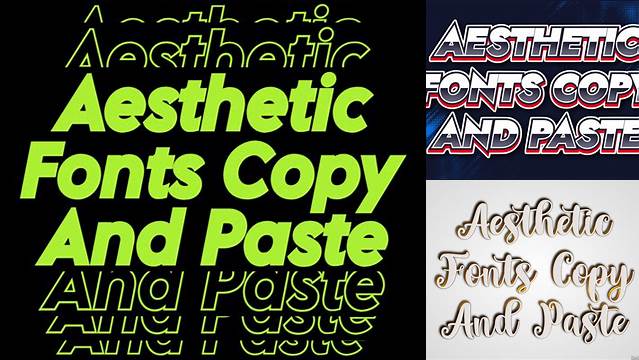
Aesthetic Fonts For IPhone: Copy & Paste Guide
Hey guys! Ever wanted to spice up your iPhone texts and social media posts with some super cool aesthetic fonts? You're in the right place! This guide will walk you through everything you need to know about getting those trendy fonts on your iPhone, all with the magic of copy and paste. Let's dive in and make your messages stand out!
1. What are Aesthetic Fonts?
So, what exactly are aesthetic fonts? Well, think of them as stylish and unique typefaces that go beyond the regular, built-in fonts on your iPhone. We're talking about fonts that can add a touch of personality, creativity, and visual flair to your messages, bios, captions, and more. These fonts often include things like cursive styles, bubble letters, gothic fonts, and other decorative elements. Aesthetic fonts aren't just about looking pretty; they're about expressing yourself and making your content stand out in a sea of plain text. They allow you to create a specific mood or style, whether you're going for playful, elegant, edgy, or something else entirely. Using aesthetic fonts is a great way to give your digital presence a unique touch and grab the attention of your audience. Imagine your Instagram bio with a cool cursive font or your text messages with a fun, bubbly typeface. It’s all about adding that extra layer of visual appeal and making your content more memorable. The best part? You don't need any fancy software or design skills to use them. With the copy and paste method, it's super easy to incorporate these fonts into your daily digital communication. So, go ahead and explore the world of aesthetic fonts and let your creativity shine!
2. Why Use Aesthetic Fonts on Your iPhone?
Why should you even bother with aesthetic fonts on your iPhone? The answer is simple: to make your content pop! In a world saturated with digital information, standing out is more important than ever. Using unique fonts can instantly grab attention and make your messages more memorable. Think about it – a beautifully crafted Instagram caption or a creatively designed bio can leave a lasting impression. Aesthetic fonts allow you to express your personality and style in a way that regular fonts just can't. They add a touch of individuality to your messages, making them more engaging and visually appealing. Whether you're aiming for a playful, elegant, or edgy vibe, there's an aesthetic font out there to match your vision. Moreover, using aesthetic fonts can enhance your overall online presence. They can make your social media profiles look more professional and polished, which is especially important if you're a content creator or business owner. A consistent use of aesthetic fonts can help you establish a unique brand identity and make your content instantly recognizable. Plus, let's be honest, they're just plain fun to use! Experimenting with different fonts can spark your creativity and add a fresh perspective to your digital communication. So, if you're looking to elevate your iPhone game and make a statement, aesthetic fonts are the way to go!
3. Finding the Best Aesthetic Font Apps
Alright, so you're sold on using aesthetic fonts, but where do you find them? The good news is that there are tons of fantastic apps available for your iPhone that offer a wide variety of stylish typefaces. Finding the best one really depends on your personal preferences and what you're looking to achieve. Some apps focus on providing a vast library of fonts, while others specialize in specific styles, like cursive or gothic. A great place to start is by exploring the App Store and searching for terms like "aesthetic fonts," "cool fonts," or "font keyboard." You'll find a plethora of options, each with its own unique features and offerings. When browsing through these apps, pay attention to user reviews and ratings. This can give you a good sense of the app's reliability and overall quality. Also, check out the app's screenshots and descriptions to get a better understanding of the font styles it offers. Look for apps that provide a good balance of variety, ease of use, and compatibility with different platforms. Some popular apps include Fontsy, Fonts for Instagram, and FancyKey Keyboard. These apps typically offer a free version with a limited selection of fonts, as well as a premium version with access to a wider range of options. Don't be afraid to try out a few different apps to see which one best suits your needs. Remember, the goal is to find an app that makes it easy and fun to incorporate aesthetic fonts into your iPhone communications!
4. Top Font Styles for iPhone Aesthetics
Now, let's talk about some of the top font styles that can seriously elevate your iPhone aesthetic. The world of aesthetic fonts is vast and varied, offering something for every taste and style. Whether you're into elegant scripts, bold sans-serifs, or quirky display fonts, there's a typeface out there to match your vibe. One popular style is the cursive font, which adds a touch of sophistication and elegance to your messages. Cursive fonts are perfect for creating a romantic or whimsical feel. Then there are the bubble fonts, which are playful and fun, ideal for adding a lighthearted touch to your captions and texts. Gothic fonts, with their intricate and dramatic letterforms, are another popular choice for those seeking a more edgy and mysterious look. Sans-serif fonts, characterized by their clean and minimalist design, are great for creating a modern and sleek aesthetic. These fonts are highly versatile and work well in a variety of contexts. In addition to these classic styles, there are also many unique and creative fonts that incorporate special characters, symbols, and ligatures. These fonts can add a truly distinctive touch to your content and help you stand out from the crowd. When choosing font styles, consider the overall aesthetic you're trying to achieve and select fonts that align with your vision. Don't be afraid to experiment with different styles to see what works best for you. After all, the beauty of aesthetic fonts lies in their ability to transform your messages into works of art!
5. Step-by-Step: Copying and Pasting Fonts
Okay, you've found your perfect aesthetic font. Now, how do you actually use it? The beauty of this method is in its simplicity: copy and paste! Here’s a step-by-step guide to get you started. First, you'll need to open the font app of your choice. Most font apps will display a text box where you can type the message you want to convert into an aesthetic font. Simply type your text into this box. Next, select the font style you want to use. Most apps offer a variety of font options, so take some time to browse and find the one that best suits your needs. Once you've chosen your font, the app will typically generate the text in the selected style. You'll then need to copy this stylized text to your clipboard. Most apps have a dedicated copy button that you can tap to do this quickly and easily. Now comes the fun part: pasting your text! Navigate to the app or platform where you want to use the aesthetic font, whether it's Instagram, Twitter, or a messaging app. Tap the text input field and select the paste option. Your stylized text will appear in the field, ready to be shared with the world! It's important to note that not all platforms support all font styles. Some platforms may display the font as a default typeface if it's not recognized. However, most major social media platforms and messaging apps support a wide range of aesthetic fonts, so you should be good to go in most cases. With a little practice, you'll be copying and pasting aesthetic fonts like a pro in no time!
6. Using Fonts in Instagram Bios
Instagram bios are prime real estate for showcasing your personality and making a strong first impression, guys! Using aesthetic fonts in your bio can instantly elevate your profile and grab the attention of visitors. Think of your bio as your digital business card – it's your chance to tell the world who you are and what you're all about. A well-crafted bio with a stylish font can make you stand out from the crowd and leave a lasting impression. To use aesthetic fonts in your Instagram bio, simply follow the copy and paste steps we discussed earlier. Type your bio text into your favorite font app, choose the font style you want, copy the stylized text, and then paste it into your Instagram bio field. It's that easy! When selecting a font for your bio, consider your personal brand and the message you want to convey. If you're a creative professional, you might opt for a script or handwritten font to showcase your artistic flair. If you're a business, a clean and modern sans-serif font might be a better choice. Remember, consistency is key. If you're using aesthetic fonts in your bio, you might also want to consider using them in your captions and stories to maintain a cohesive look and feel. Experiment with different fonts and combinations to see what works best for you. And don't be afraid to update your bio font periodically to keep things fresh and engaging. With the right aesthetic font, your Instagram bio can become a powerful tool for self-expression and brand building!
7. Adding Fonts to Instagram Captions
Captions are your opportunity to add context, personality, and a touch of flair to your Instagram posts. And guess what? Aesthetic fonts can take your captions to the next level! Imagine pairing a stunning photo with a caption that's not only well-written but also visually appealing thanks to a stylish font. It's a recipe for engagement and a great way to make your content stand out in the crowded Instagram feed. The process for adding aesthetic fonts to your Instagram captions is the same as for bios: use a font app, type your caption, select your font, copy the stylized text, and paste it into your caption field. Super simple, right? But the impact can be huge! When choosing fonts for your captions, think about the tone and style of your post. A playful photo might call for a bubbly or handwritten font, while a more serious or artistic post might benefit from a classic serif or sans-serif font. You can even use different fonts to highlight certain words or phrases within your caption, adding emphasis and visual interest. Just be mindful not to overdo it – a caption with too many different fonts can look cluttered and distracting. It's generally best to stick to one or two fonts per caption for a clean and cohesive look. And remember, readability is key. While aesthetic fonts are fun and stylish, they should still be easy to read. Choose fonts that complement your content and enhance the overall viewing experience. With a little creativity and the help of aesthetic fonts, your Instagram captions can become a powerful tool for storytelling and connection!
8. Making Your Texts Stand Out with Fonts
Tired of sending the same old boring text messages? Aesthetic fonts can inject some fun and personality into your conversations, making your texts stand out from the digital noise! Imagine sending a message in a cool gothic font or a playful bubble letter style – it's sure to grab the recipient's attention and add a unique touch to your communication. Just think how much more expressive your texts can be with the right font! The process for using aesthetic fonts in your texts is the same copy-and-paste method we've been discussing. Simply use a font app to generate your message in the desired style, copy the stylized text, and paste it into your messaging app. Keep in mind that the recipient will need to have a compatible device and font support to see the aesthetic font as intended. While most modern smartphones and messaging apps do support a wide range of fonts, there's always a chance that the font might display differently on some devices. This is why it's a good idea to test your fonts with a few friends or family members to ensure they're displaying correctly. When choosing fonts for your texts, consider the context of the conversation and your relationship with the recipient. A formal or professional message might call for a clean and legible font, while a casual chat with friends is a great opportunity to experiment with more playful and expressive styles. And remember, a little font creativity can go a long way in making your texts more engaging and memorable!
9. Font Keyboards: A Convenient Option
Okay, so copying and pasting fonts is pretty easy, but what if you could type directly in those aesthetic fonts? That's where font keyboards come in! Font keyboards are third-party keyboards that you can install on your iPhone, just like you would install any other app. Once installed, they allow you to switch between different font styles directly from your keyboard, without having to copy and paste from a separate app. It's a super convenient option for those who use aesthetic fonts frequently and want a more streamlined experience. There are many font keyboard apps available on the App Store, each offering a unique selection of fonts and features. Some popular options include Fonts, Fontsy, and FancyKey Keyboard. When choosing a font keyboard, consider the range of fonts it offers, the ease of use, and any additional features, such as custom keyboard themes or emoji support. Most font keyboard apps are free to download, but they often come with in-app purchases for unlocking additional fonts or features. Keep in mind that using a third-party keyboard requires granting it access to your typing data, so it's important to choose a reputable app from a trusted developer. Be sure to read the app's privacy policy before installing it to understand how your data will be handled. Once you've installed a font keyboard, you'll need to enable it in your iPhone's settings. Go to Settings > General > Keyboard > Keyboards, and then tap "Add New Keyboard." Select your font keyboard from the list, and then toggle the "Allow Full Access" option if you want the keyboard to have access to all of its features. With a font keyboard installed, you can now type directly in aesthetic fonts in any app that supports custom keyboards. It's a game-changer for anyone who loves adding a personal touch to their iPhone communications!
10. Troubleshooting Font Display Issues
Sometimes, even with the best font apps and keyboards, you might run into issues with fonts not displaying correctly. This can be frustrating, but don't worry – there are usually simple solutions to these problems. One common issue is that the recipient of your message might not see the aesthetic font as intended. This can happen if they're using a device or platform that doesn't support the font style you've used. In these cases, the font will typically default to a standard typeface, such as Arial or Times New Roman. There's not much you can do about this, but you can always ask the recipient what font they're seeing to get a better understanding of the issue. Another potential issue is that some platforms might strip out the aesthetic font formatting altogether. This is particularly common on platforms that prioritize plain text for accessibility reasons. If you're finding that your fonts aren't displaying on a particular platform, you might need to adjust your approach and use a different method for adding visual flair to your content, such as using emojis or formatting options within the platform itself. If you're using a font keyboard, make sure that it's properly enabled in your iPhone's settings. Sometimes, a font keyboard can become disabled after an iOS update or if you've recently installed a new keyboard. To check, go to Settings > General > Keyboard > Keyboards and make sure your font keyboard is listed and selected. If you're still having trouble, try restarting your iPhone. This can often resolve minor software glitches that might be interfering with font display. And if all else fails, consider reaching out to the font app or keyboard developer for support. They might be able to provide specific troubleshooting steps or identify any known issues with their product. By being aware of potential font display issues and knowing how to troubleshoot them, you can ensure that your aesthetic fonts are shining bright wherever you use them!